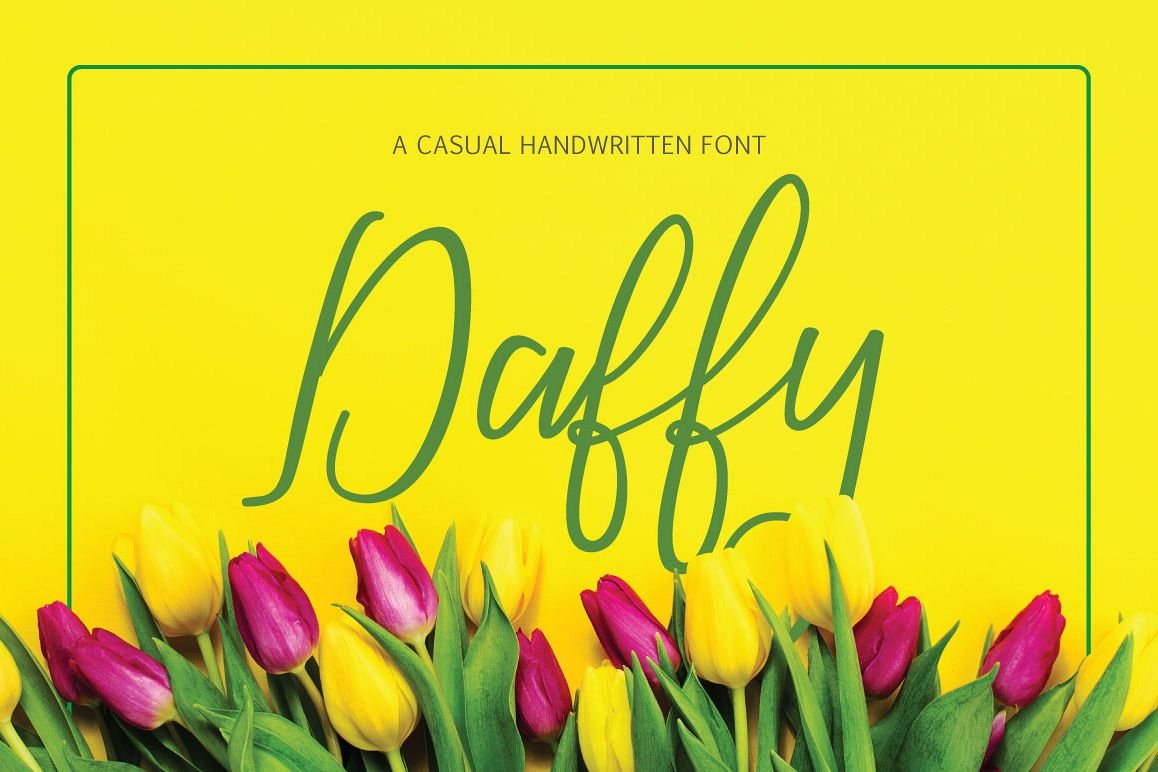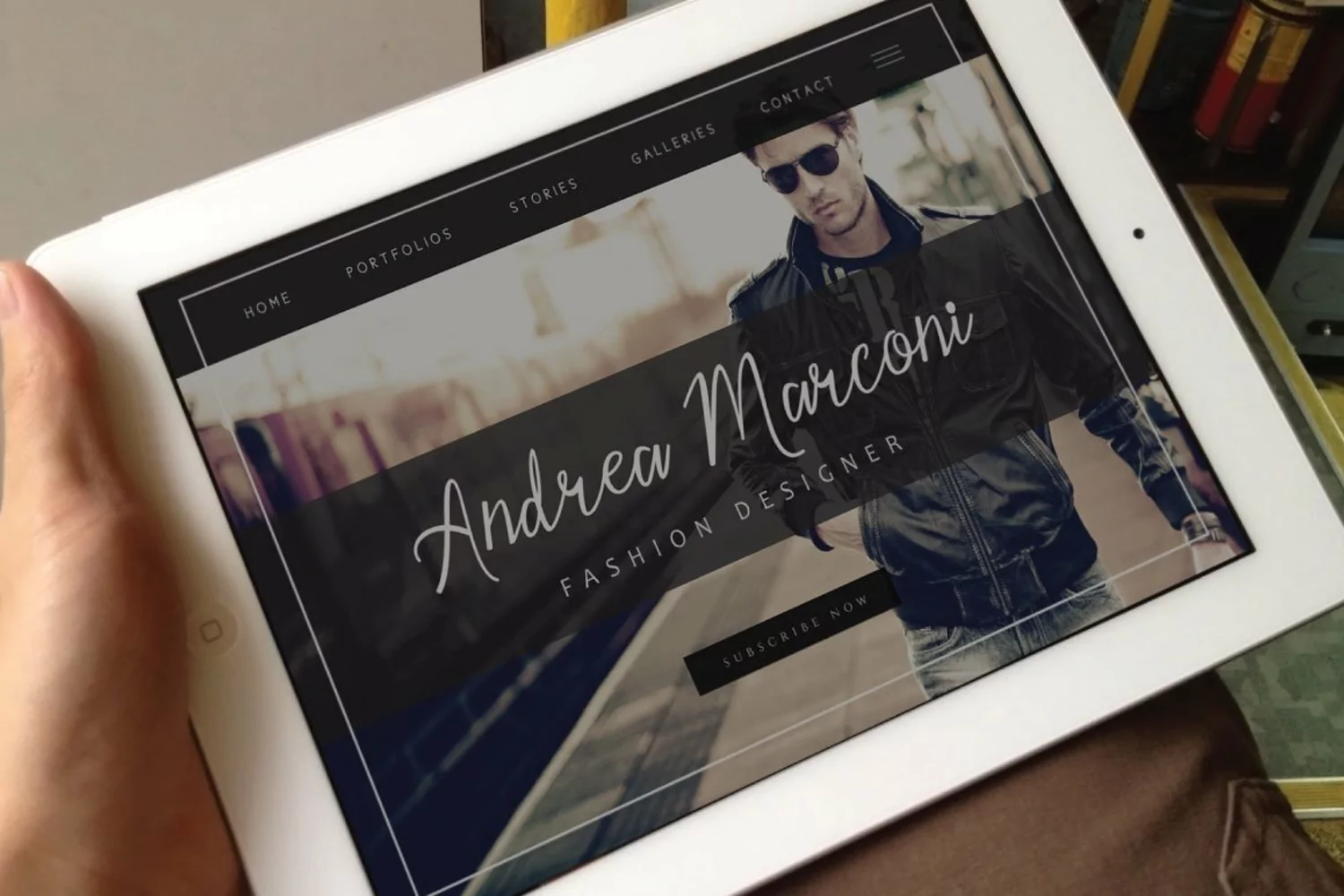
Presenting
Duffy Typeface, an enjoyable and charm script
font which is brilliance and sensibly designed to create your text looks outstanding.
A lively script style typeface will craft a neat appearance for many different
projects such as quotes, blog header, poster, wedding, branding, logo, fashion,
apparel, letter, invitation, stationery, etc.